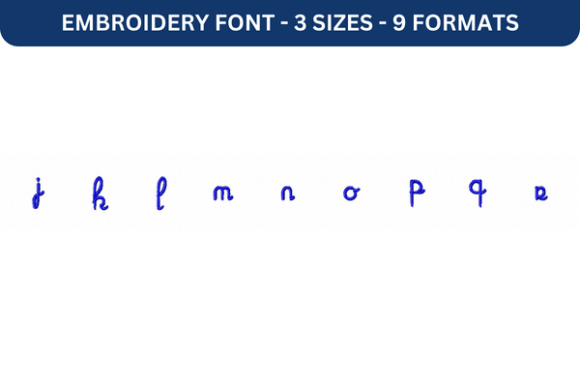
Marguerite Font Lower J to R
As an embroidery designer with years of experience, I’ve seen my fair share of fonts and embroidery files. When I came across the Marguerite Font Lower J to R, I was immediately drawn to its elegant, flowing style. This is more than just a font—it’s a design tool that can elevate your handmade products and commercial embroidery projects. In this review, I’ll walk through my real-world testing of the Marguerite Font Lower J to R, discussing how it performs on different materials, what it looks like in action, and whether it’s worth adding to your design library.
The First Impression: A Delicate Yet Bold Design
Upon opening the Marguerite Font Lower J to R, I was struck by its soft, curving lines and refined detailing. The font has a feminine, almost vintage feel, which makes it ideal for personalized gifts, nursery decor, or back-to-school items. Its visual mood is light and airy, yet the structure of each letter is strong enough to hold up in machine embroidery. The detail level is impressive—each stroke and curve is well-defined, making it suitable for both simple and intricate applications.
This font works especially well with satin stitch and fill stitch techniques, giving it a polished finish. It also lends itself nicely to applique design, where the delicate outlines can be used to create layered effects. Whether you're working on a tote bag design or a sweatshirt embroidery, the Marguerite Font Lower J to R adds a touch of sophistication without being overwhelming.
Real-World Performance: Testing on Different Projects
I tested the Marguerite Font Lower J to R on a variety of materials and project types to see how it would perform in real-world conditions. One of the first things I noticed was that the font is best suited for medium to large hoop sizes. While it can be split into smaller sections, the intricate details may become lost if the hoop is too small. For embroidered patches or cap embroidery, I recommend using a hoop that allows for at least 4x4 inches of space to maintain clarity.
When I tried the font on stretchy fabric, such as a cotton sweatshirt, I found that the stitch density needed to be adjusted slightly to prevent puckering. Using a good quality stabilizer helped keep the design in place and ensured that the letters didn’t distort during stitching. On dark fabric, the font looked clean and legible, especially when paired with a contrasting thread color. However, on lighter fabrics, I found that using a running stitch around the edges helped define the letters better.
For handmade products like kitchen towels or pillow covers, the Marguerite Font Lower J to R added a unique, personal touch. It worked well with printable mockups and design assets, making it easy to visualize how the final product would look. I also tested it on a baby blanket, where the soft curves complemented the overall aesthetic of the item perfectly.
Practical Use: What to Consider Before Using
Before jumping into a full project, I recommend doing a few key checks. First, always test on scrap fabric to see how the machine embroidery design looks in practice. This helps identify any issues with stitch density or thread color contrast before committing to a larger project.
When using the font for commercial embroidery or Etsy listings, make sure to review the licensing terms carefully. This ensures that you’re allowed to sell the finished product without any legal issues. Also, remember to inspect small details after stitching—especially on textured fabric or curved cap surfaces, where the font might not come out as crisp as expected.
Impact on Product Value and Customer Perception
One of the most valuable aspects of the Marguerite Font Lower J to R is how it enhances the visual appeal of your work. When used on personalized gifts or custom apparel, it adds a sense of care and craftsmanship that customers appreciate. This can significantly boost buyer trust and customer engagement, especially for small business owners and handmade shop owners.
From a branding perspective, using a consistent font like the Marguerite Font Lower J to R helps maintain brand consistency across all your boutique merchandise and apparel decorators projects. It also makes your finished product more giftable, as the font’s elegance naturally appeals to those looking for something special.
Final Thoughts: Is It Worth It?
After extensive testing and real-world use, I can confidently say that the Marguerite Font Lower J to R is a valuable addition to any embroidery designer’s toolkit. Its elegant design, versatility, and performance on various materials make it a solid choice for both handmade products and commercial embroidery projects. Whether you're creating back-to-school items or seasonal gifts, this font offers a level of refinement that sets your work apart.